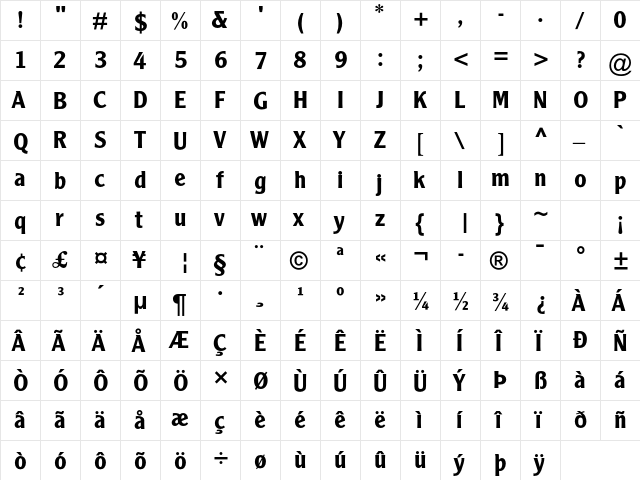
Clearface Gothic MT Std Demi
| Foundry | Agfa Monotype Corporation |
Design Context for Clearface Gothic MT Std Typeface
Clearface Gothic MT Std takes a clean, functional approach — its unadorned letterforms prioritise legibility and work reliably across screen and print environments.
Font Pairing: Works well alongside a characterful serif or display font that can carry the expressive load while Clearface Gothic MT Std handles the functional copy.
Pro Tip: Pair Clearface Gothic MT Std with a display or serif font for headlines — its neutral character makes it an excellent supporting player in complex typographic systems.